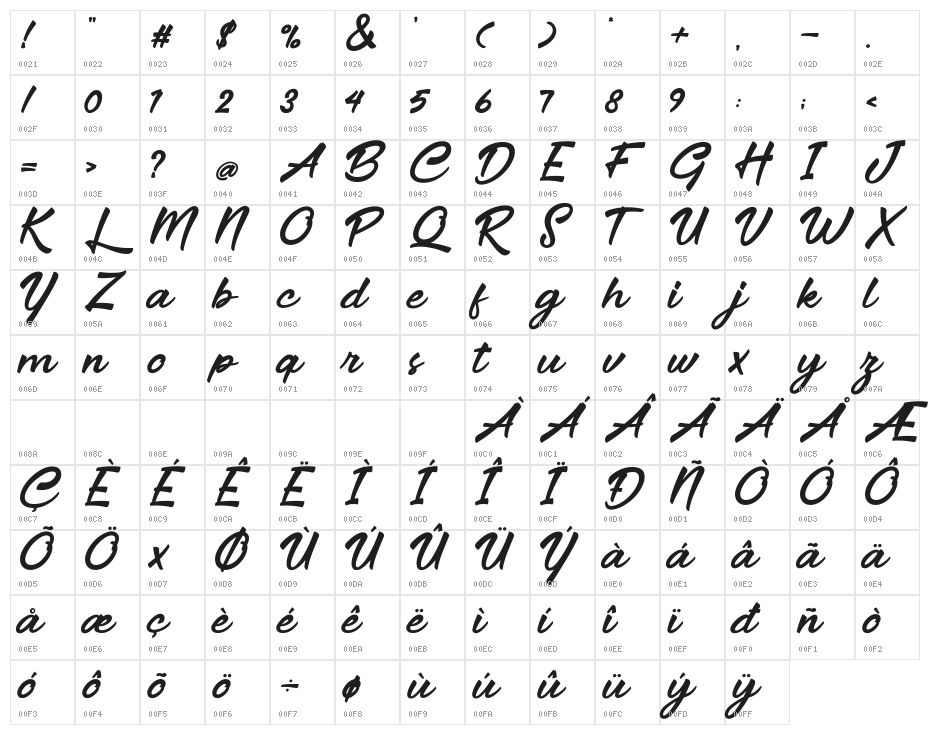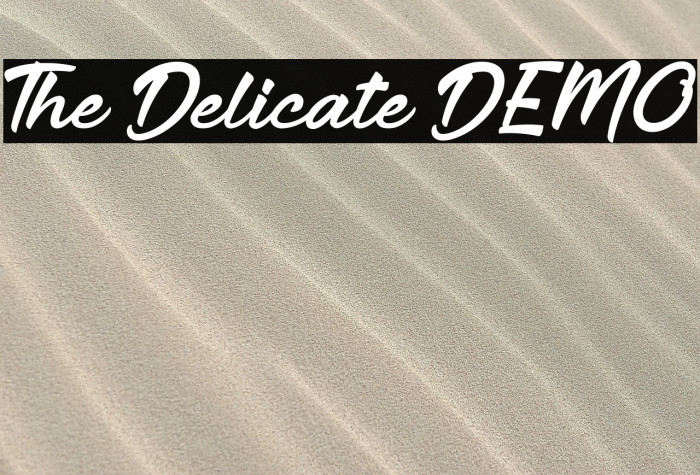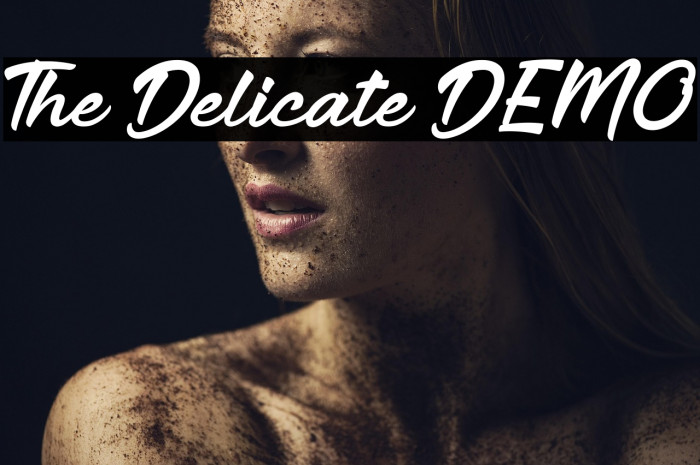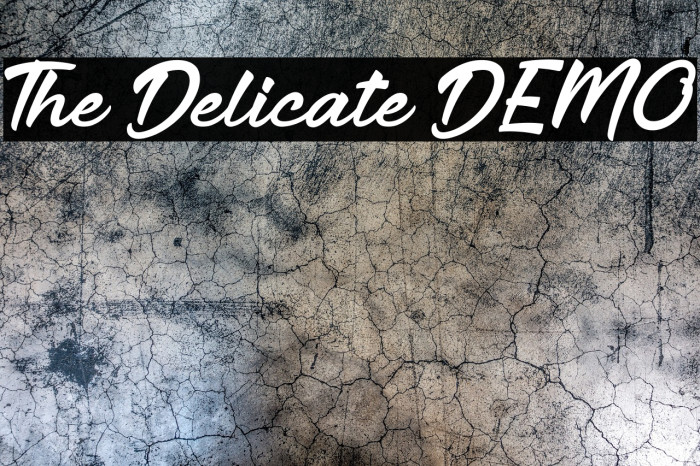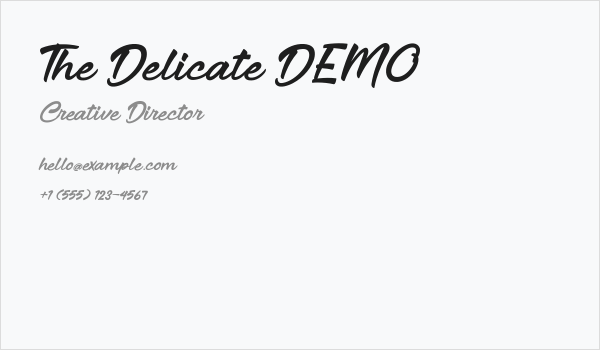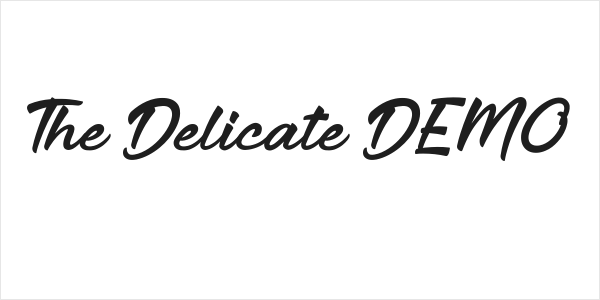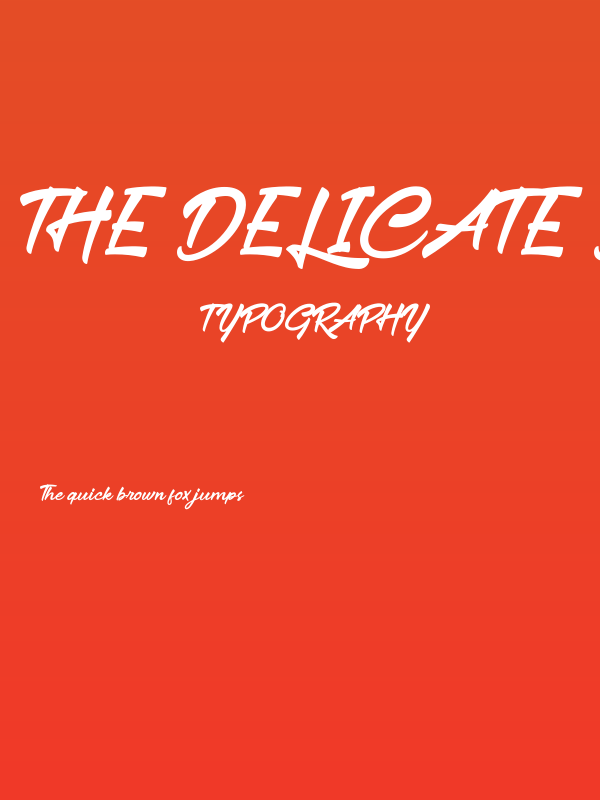
The Delicate DEMO Font
The Delicate DEMO Description
This font features a flowing, cursive style that exudes elegance and sophistication. The characters are interconnected, creating a seamless and fluid appearance. The uppercase letters are bold and prominent, while the lowercase letters maintain a consistent flow, enhancing readability. The numerals are distinct and match the overall cursive theme, providing a cohesive look. Special characters are designed with the same attention to detail, ensuring they blend well with the rest of the font. This font's style is reminiscent of handwritten calligraphy, making it suitable for projects that require a personal touch.